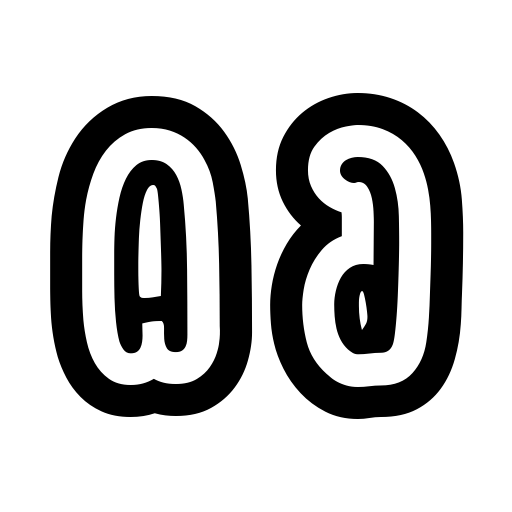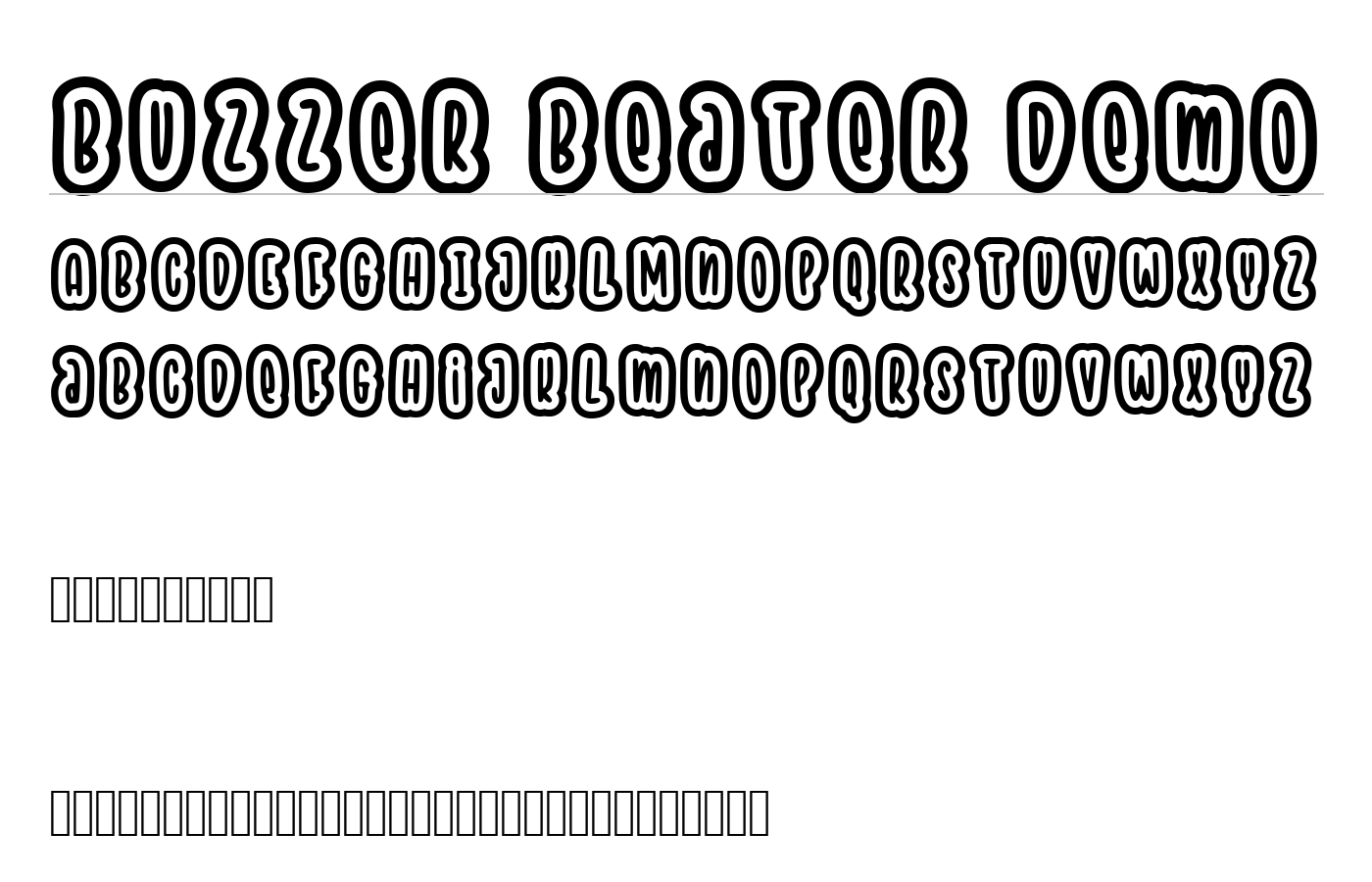
Buzzer Beater Demo is a playful, bold display font with rounded, bubble-like letterforms outlined by thick, uneven strokes that give it a hand-drawn, energetic feel. Its uppercase-only style and whimsical shapes make it perfect for fun, casual designs such as sports-themed branding, posters, and children’s content where a lively and approachable mood is desired. This font stands out best in large sizes, adding a dynamic, youthful personality to any project.
Buzzer Beater Demo Font
About Buzzer Beater Demo Font